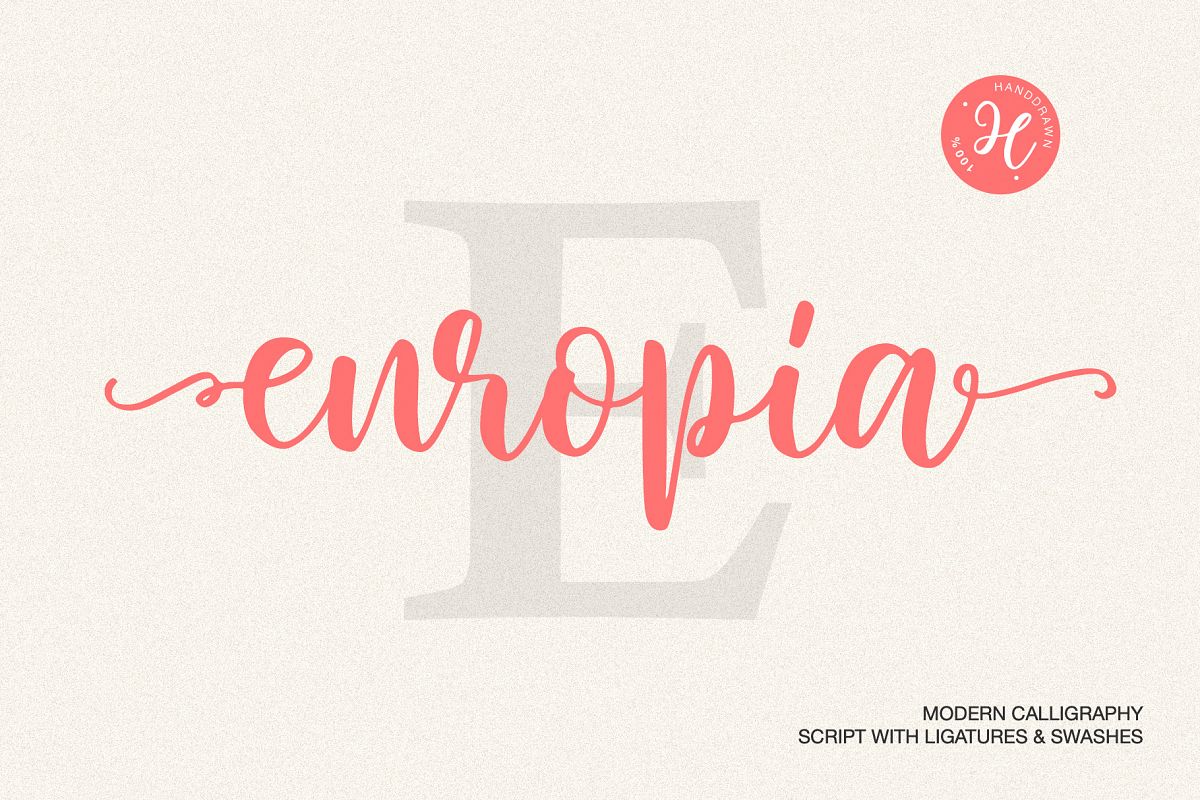
EUROPIA handwritten font DUO
Europe was built with OpenType features and includes initial and final touches, numerals, punctuation marks, alternation, alloys, and also supports other languages.
Font can be easy used in ANY TEXT EDITOR, without difficulties and dances with a tambourine. To add tails to the words you just need to select the Swashes font. The regular version will be written ALWAYS WITHOUT TAILS
• Support ALL European Languages